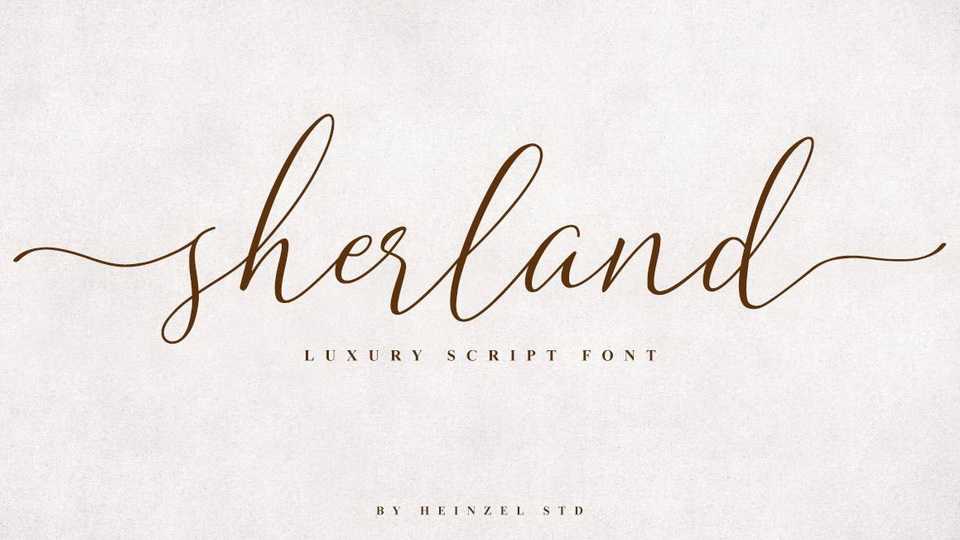
Download Sherland font, a beautiful calligraphy script with an elegant, natural, stylish look that perfect for any awesome projects that need handwriting taste.
Designer: Heinzel Studio